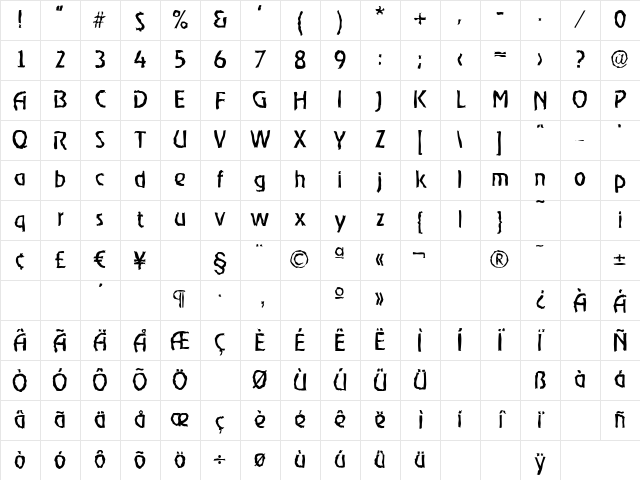
OnStageRandom Regular
Complete OnStageRandom Regular glyph index. Displaying only characters natively supported by OnStageRandom Regular font.
Design Context for OnStageRandom
OnStageRandom is a composed and adaptable typeface that performs quietly and consistently across a wide range of design contexts.